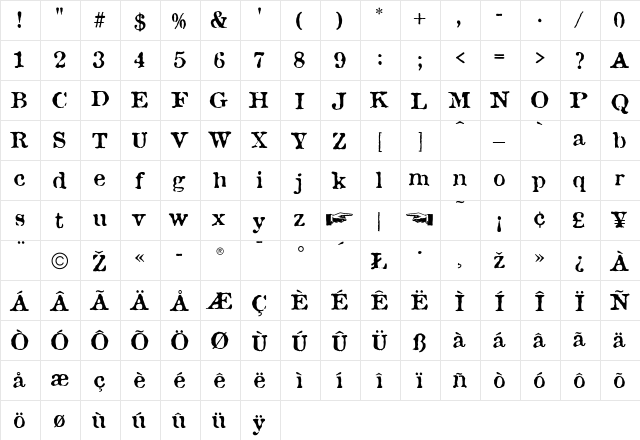
Gooseflesh Regular
| Foundry | Digitized by Dan X. Solo. Software \ by Dover Publications, Inc |
Design Context for Gooseflesh Typeface
Gooseflesh takes a measured approach to typography — its balanced proportions and neutral character make it a reliable workhorse for both digital and print work.